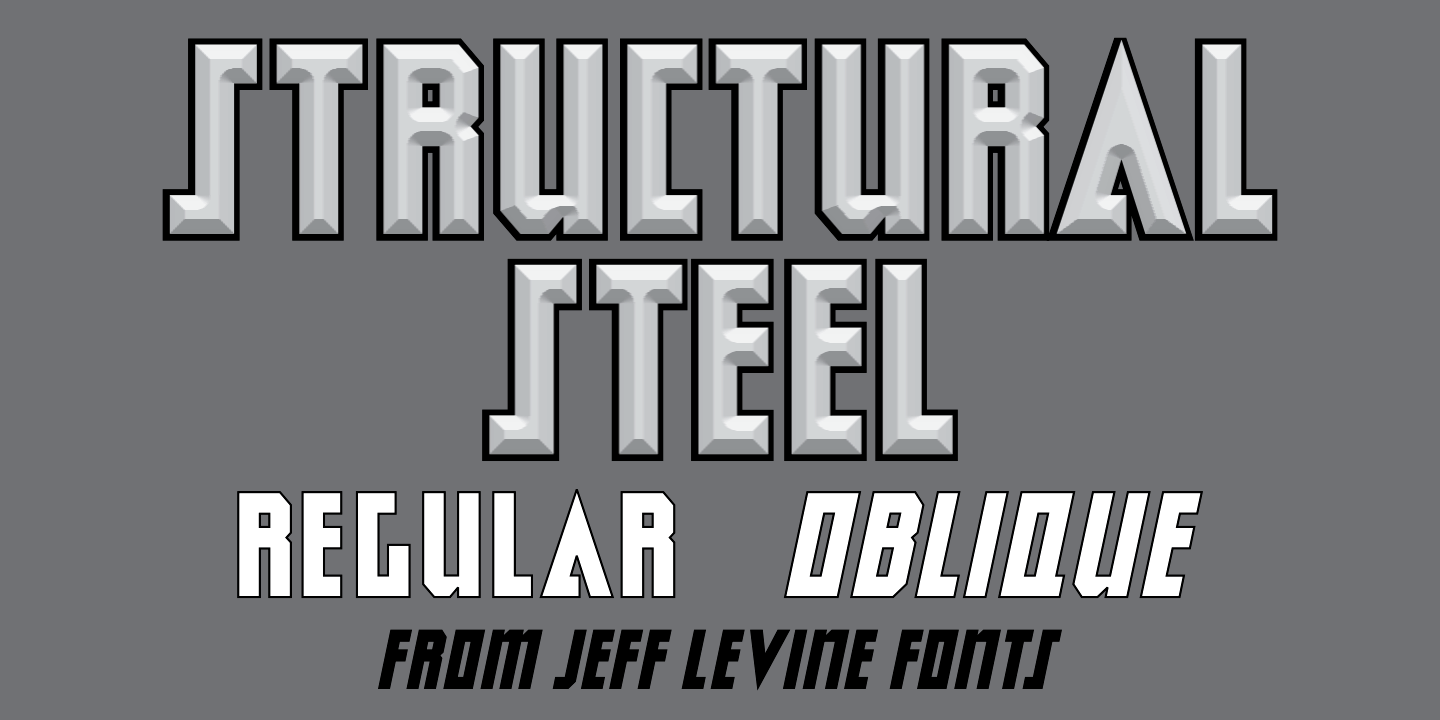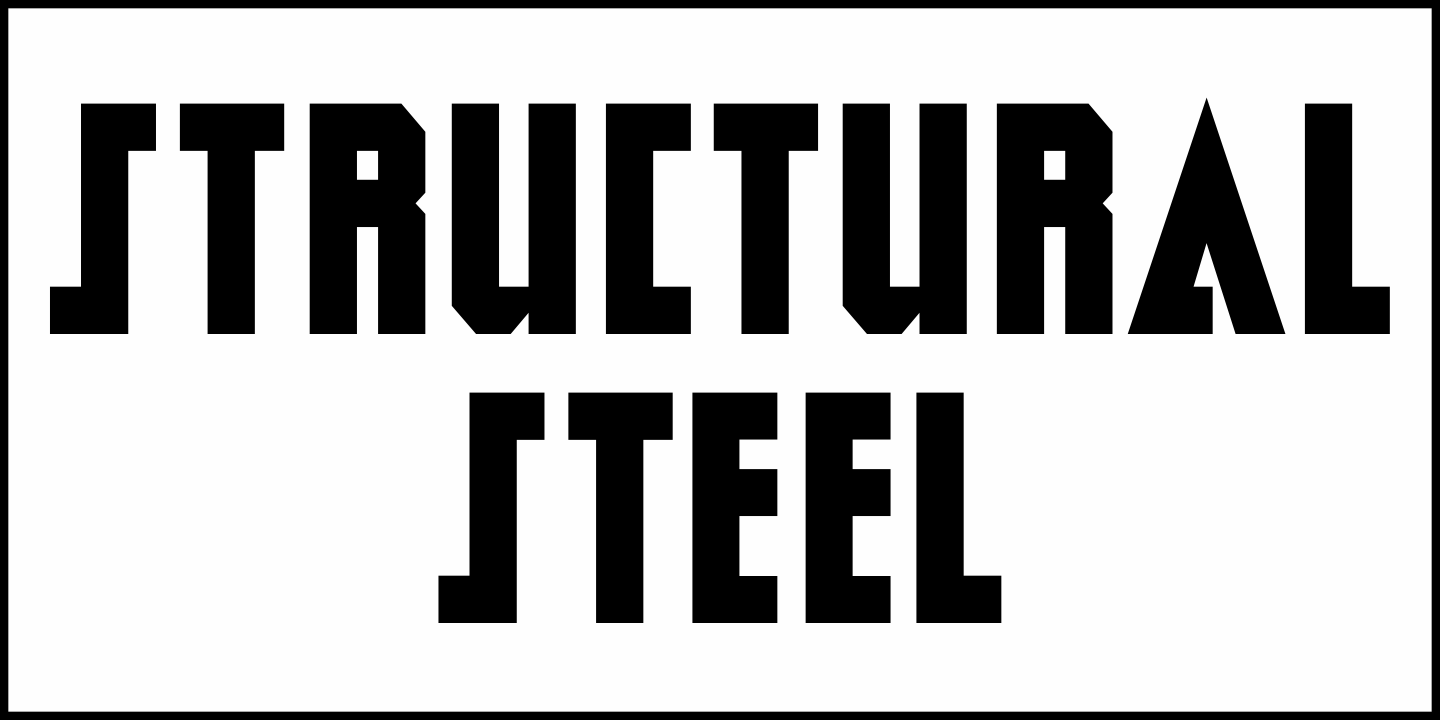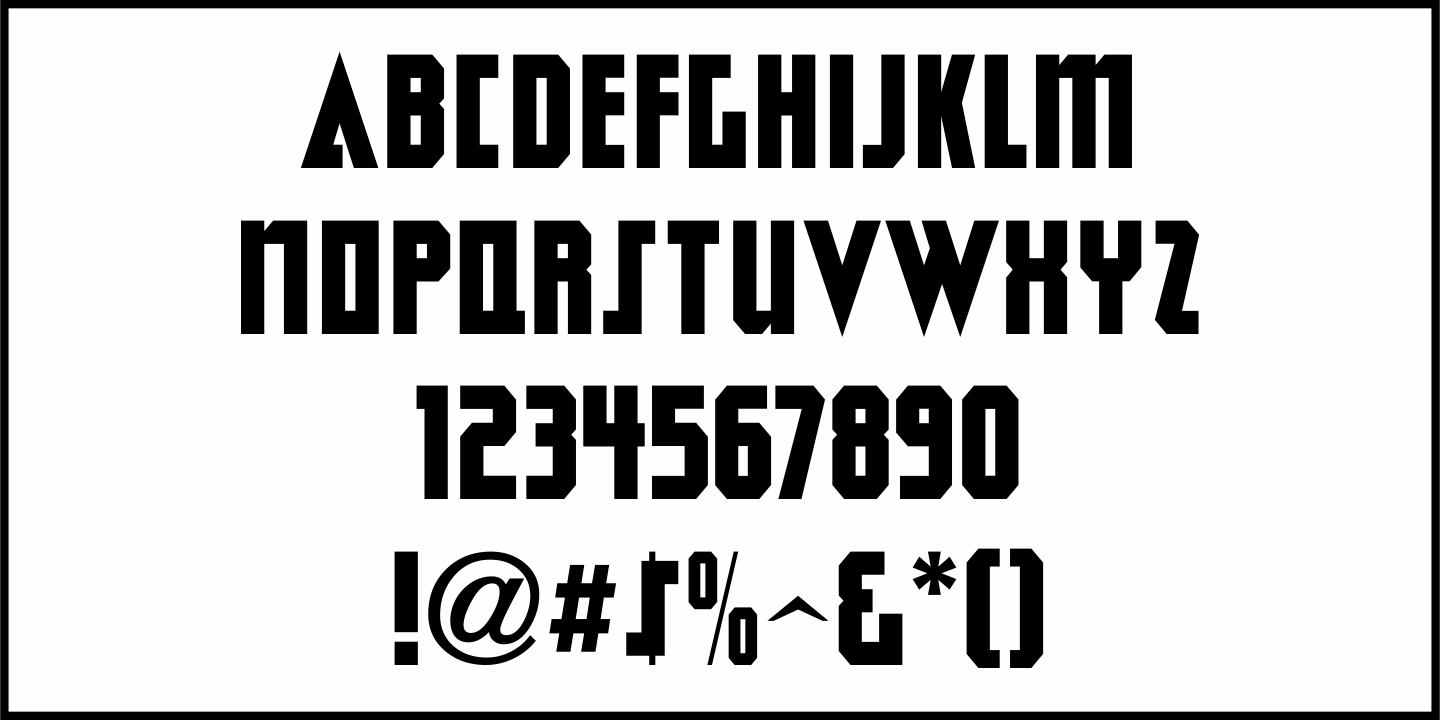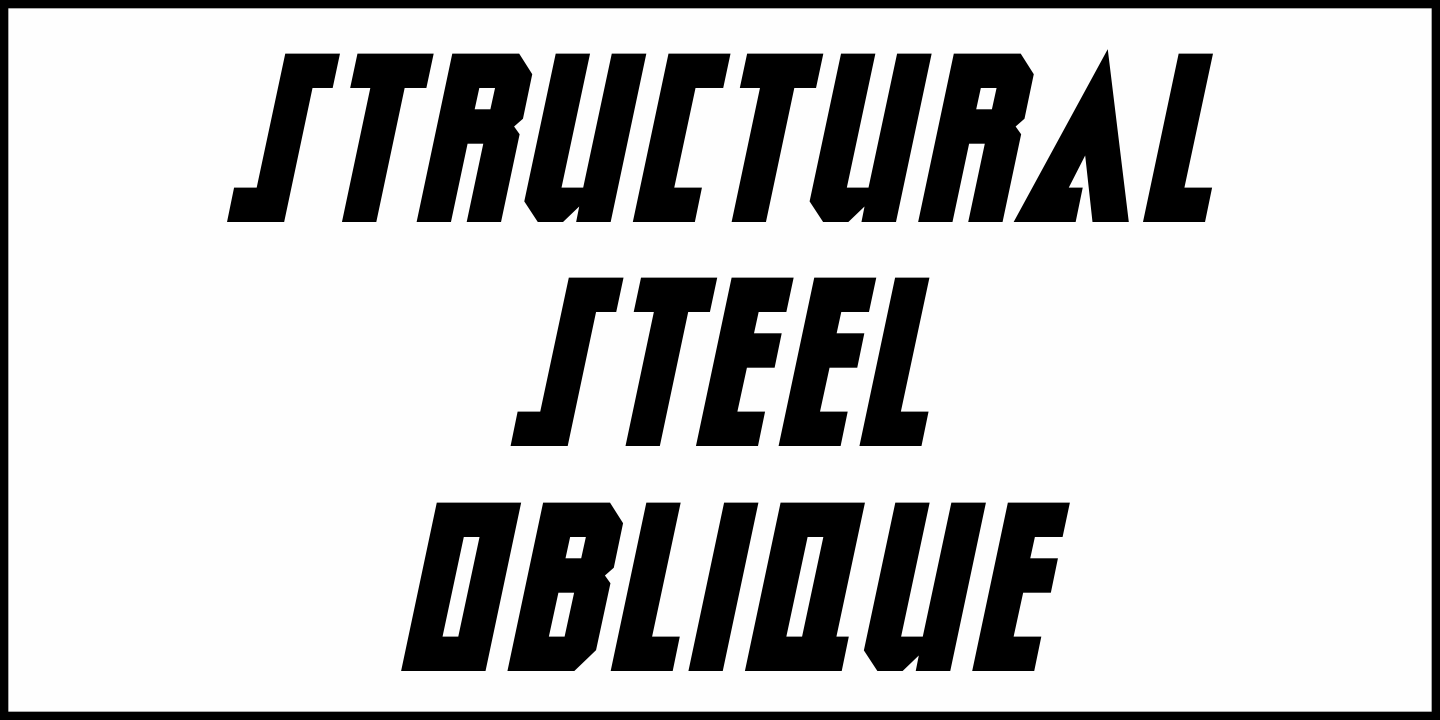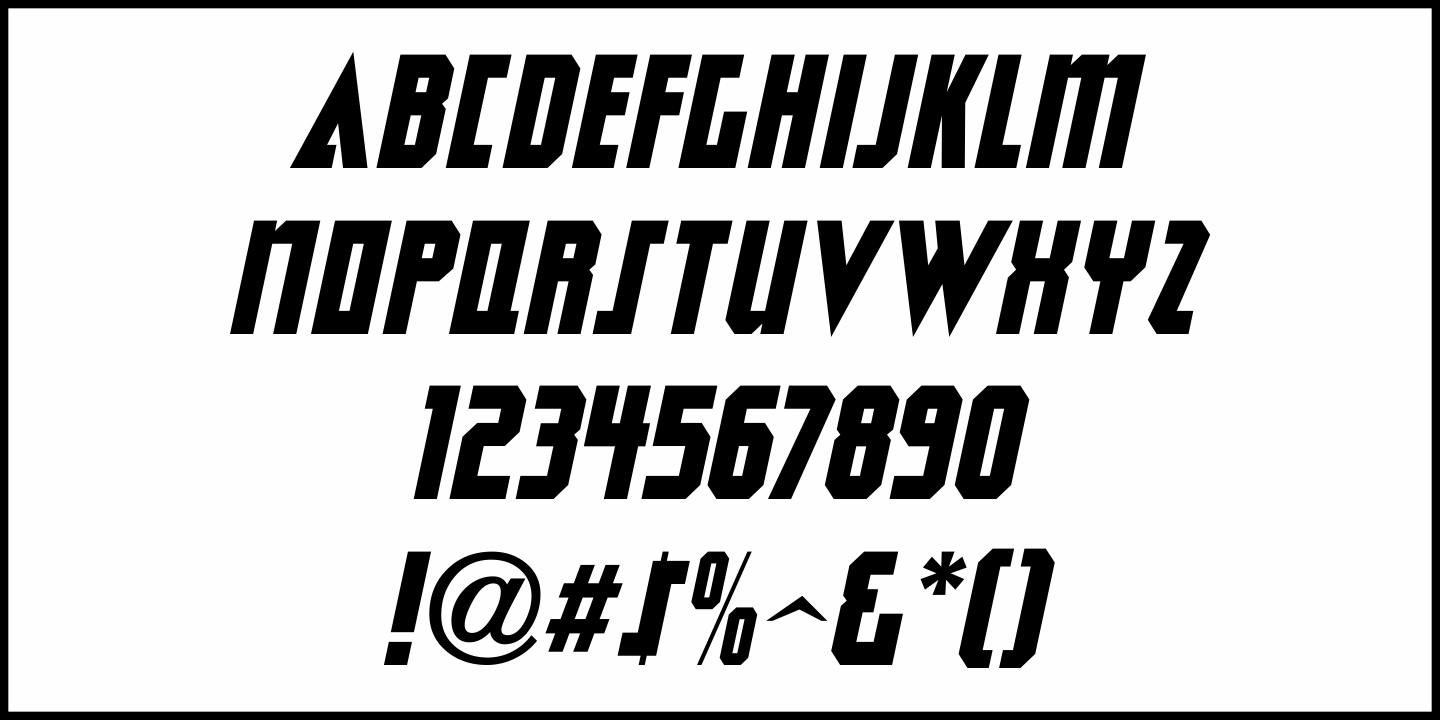
Structural Steel
An ad in the March 27, 1961 issue of Boxoffice Magazine for the film "Atlantis-The Lost Continent" featured the film's title hand lettered in an ultra bold, block-like sans design.
With some letters squared, and some chamfered at the corners, this typeface evokes strength and durability. It is available digitally as Structural Steel JNL in both regular and oblique versions.